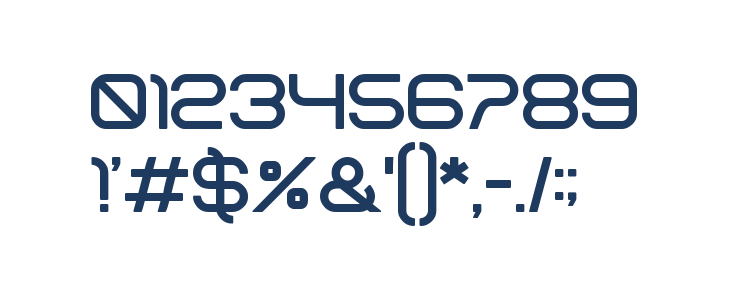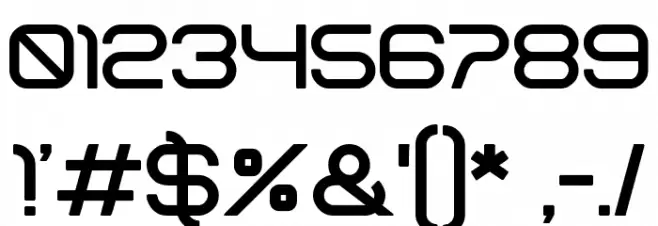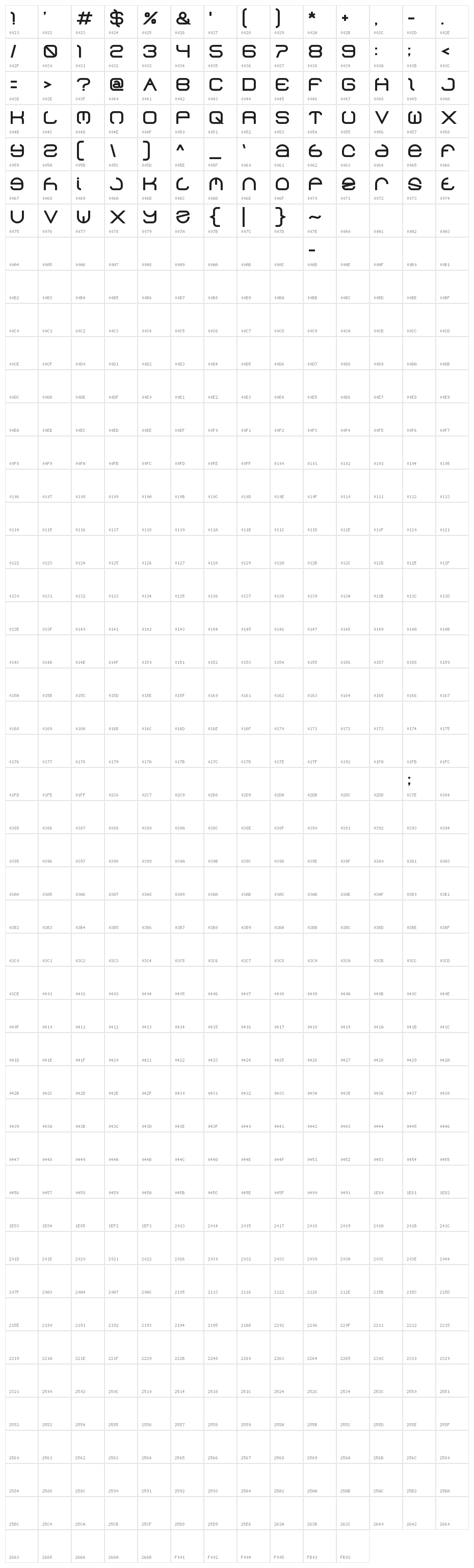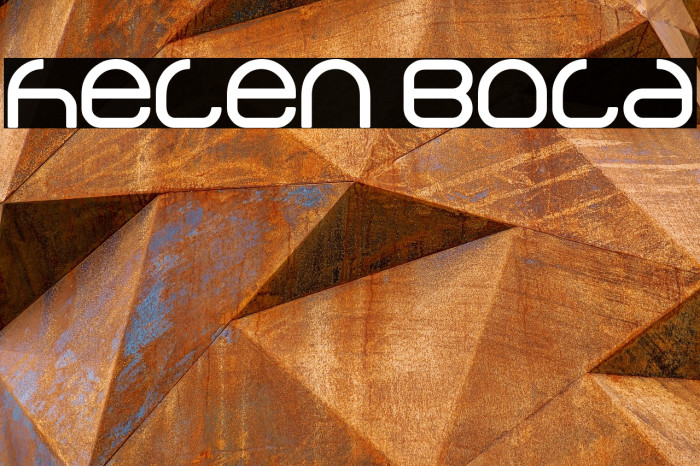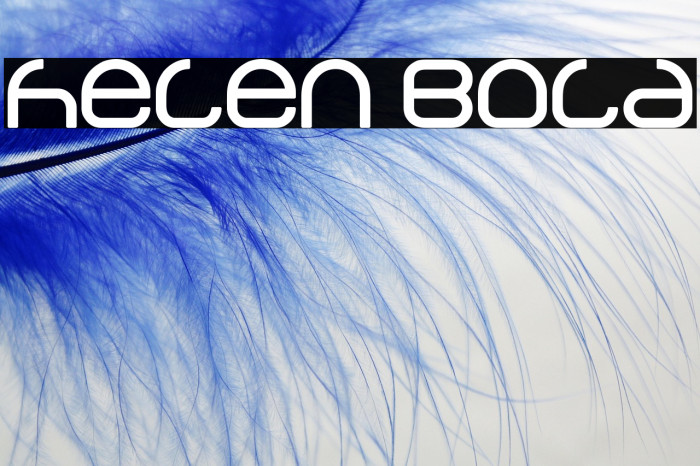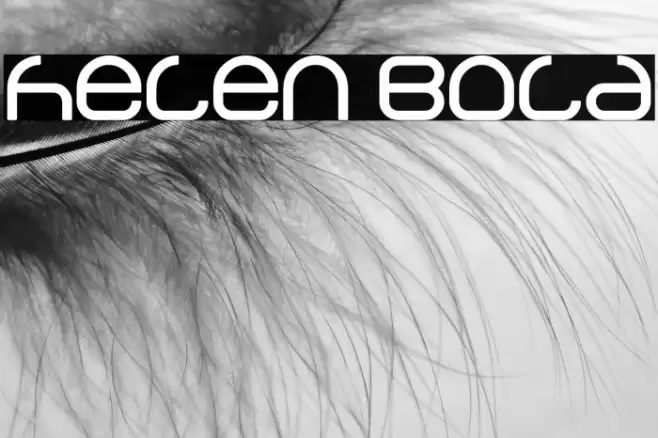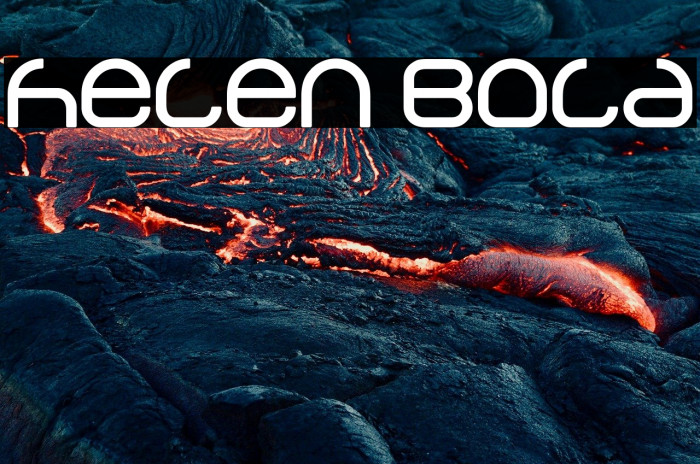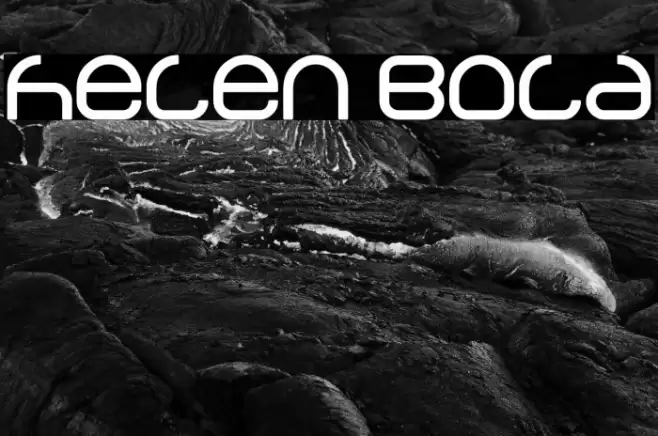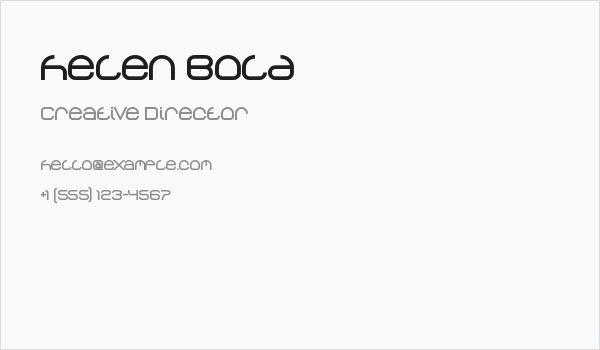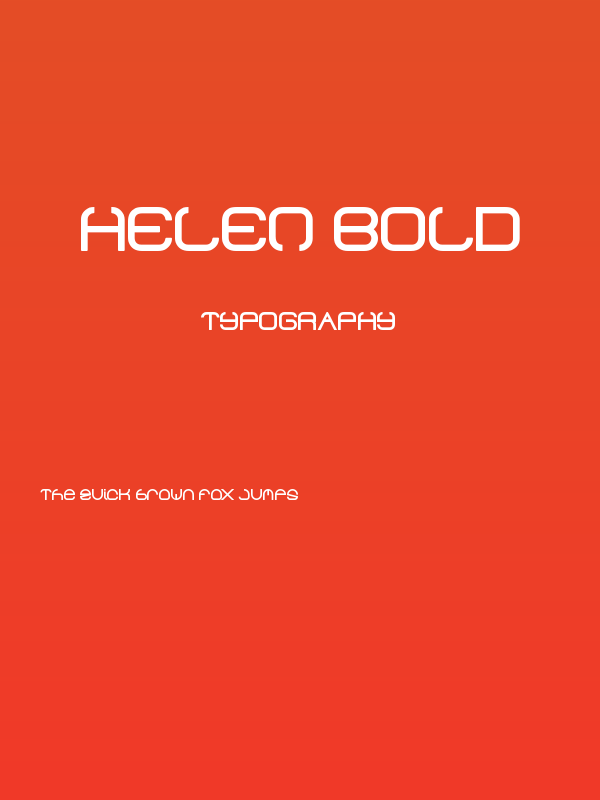
helen Bold Font
helen Bold Description
This font exhibits a futuristic and geometric design, characterized by its rounded edges and consistent stroke width. The uppercase and lowercase letters share a similar structure, creating a cohesive and modern appearance. The numerals and special characters maintain the same stylistic approach, ensuring uniformity across all elements. The font's clean lines and minimalistic style make it suitable for contemporary design projects. Its unique letterforms, such as the curved 'E' and 'F', add a distinctive touch that sets it apart from traditional typefaces. The overall aesthetic is sleek and sophisticated, making it ideal for projects that require a modern and innovative look.
| Proposed Projects | Ideal for technology branding, modern advertising, and innovative product packaging. |